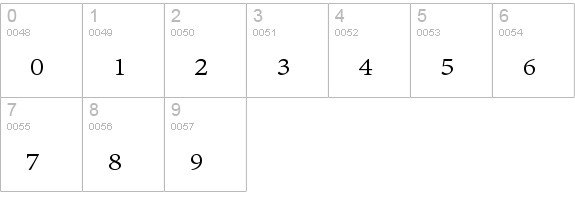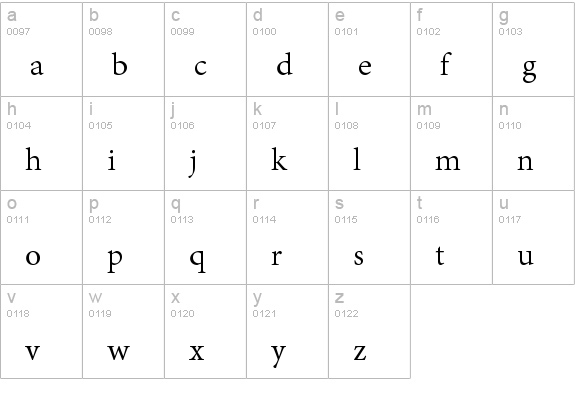
Adobe Thai Regular is the standard, neutral variant in the Adobe typeface family \xE2\x80\x94 well suited to general body text, paragraphs, and standard typographic work.
Adobe Thai Regular font is a beautiful and elegant typeface designed specifically for Thai language text. Its clean and legible design makes it perfect for a wide range of design projects, from print to digital. The Adobe Thai Regular font embodies the essence of traditional Thai typography while offering a modern and sophisticated look. Best of all, Adobe Thai Regular font is free to download at FontsMarket.com. This means you can easily access and use this high-quality font in your projects without any cost. Whether you are working on a branding project, a website design, or any other creative endeavor that requires Thai text, Adobe Thai Regular font is a reliable choice that will elevate your design to the next level. Download it today and enhance your typography game with this impressive and versatile font.